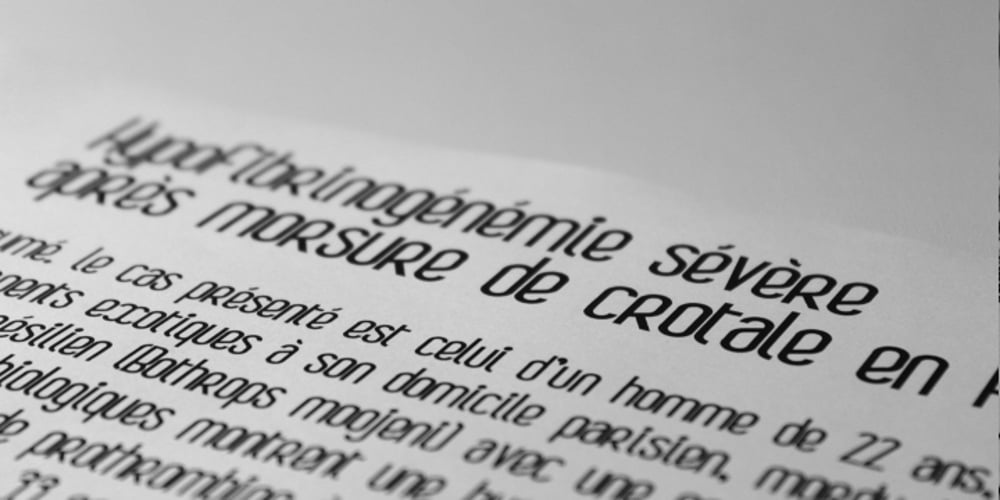
Boa Font Family was designed by Thibault Dietlin and published by Alien. Boa contains 1 styles and family package options. Boa bold is a basic display font made for print. It was created for an Artbook about reptiles. It needed to be round and clear.